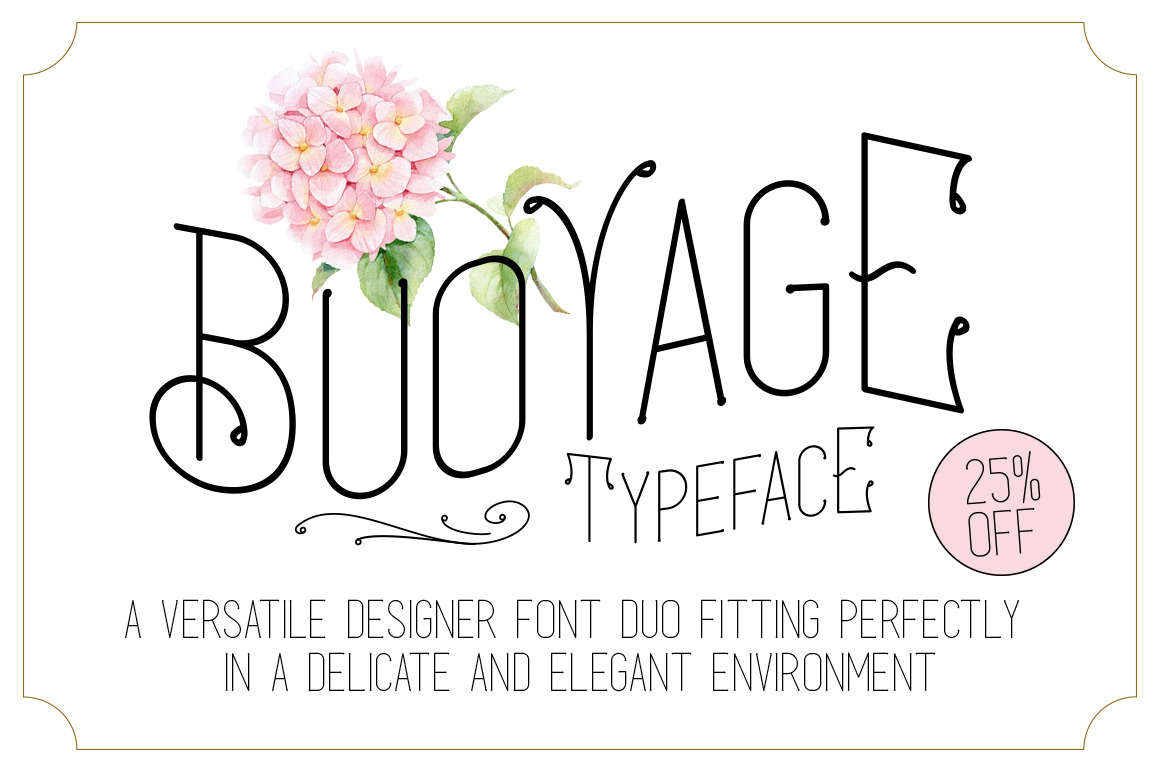
Buoyage Typeface + Extras
Buoyage Typeface
Say Hello to Buoyage Typeface! A versatile designer font duo fitting perfectly in a delicate and elegant environment. A delightfully playful font perfect for a design even if it’s a logo, packaging, invitation, web, homeware design or simply a stylish text overlay to any background image.
Buoyage Typeface features:
- International characters (Multilingual)
- Punctuation & symbols
- Bonus Ornament